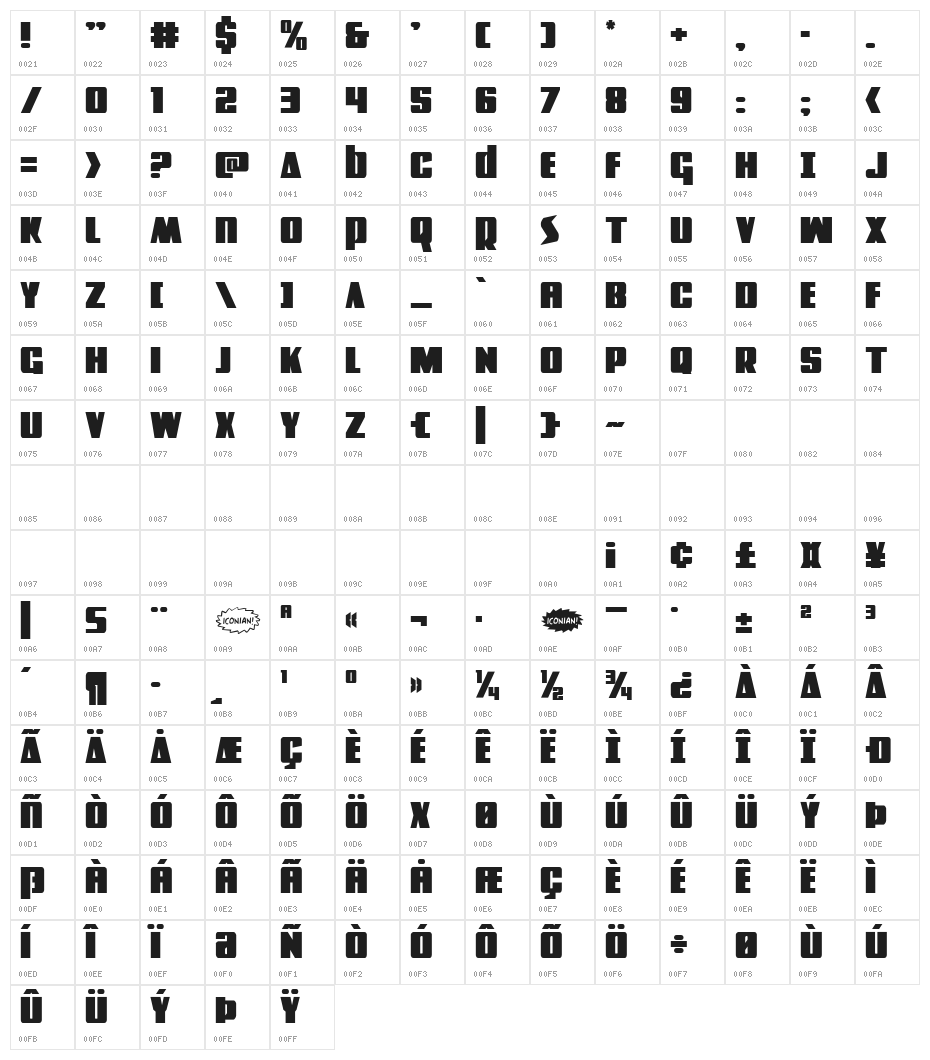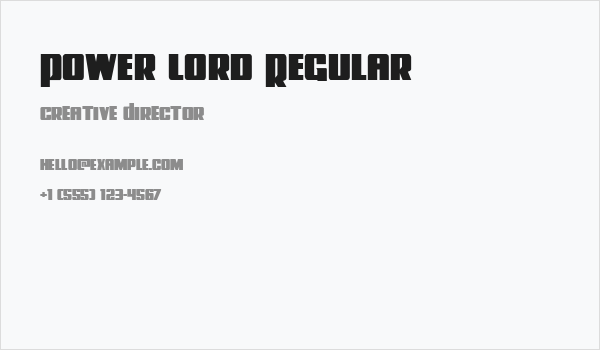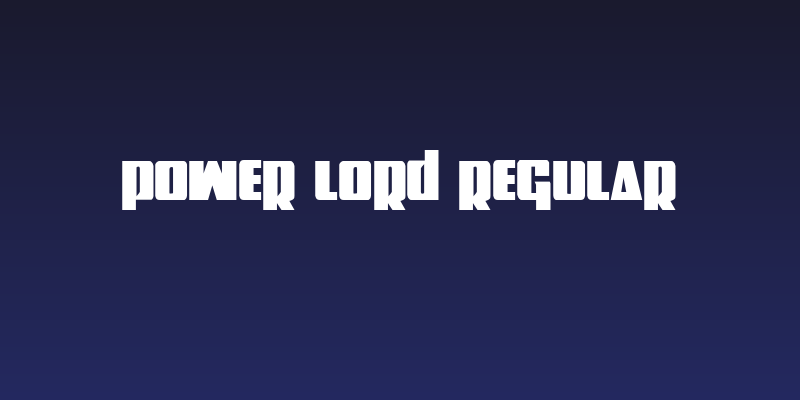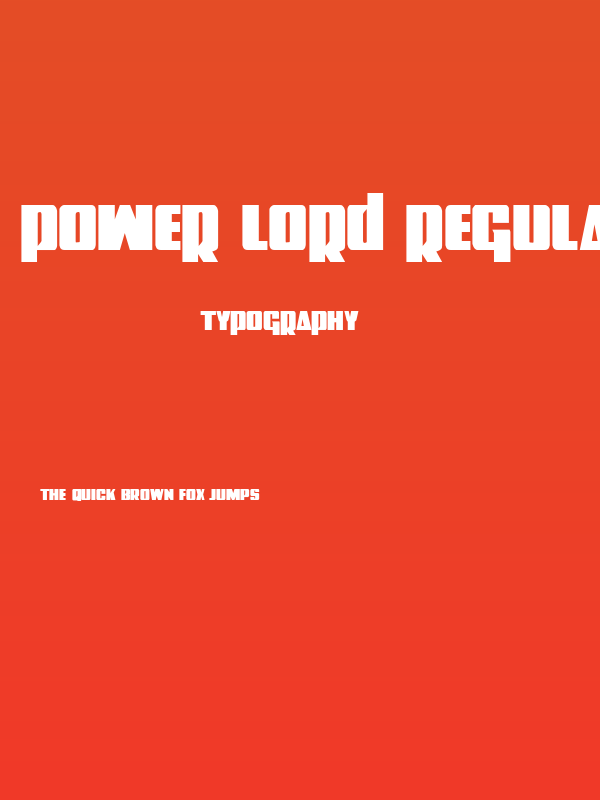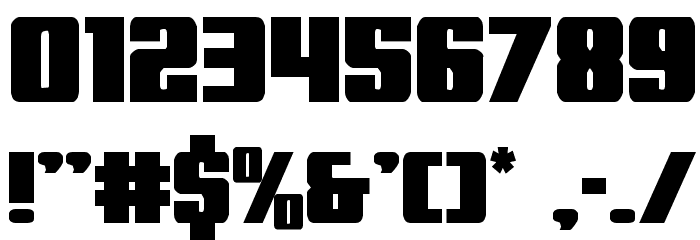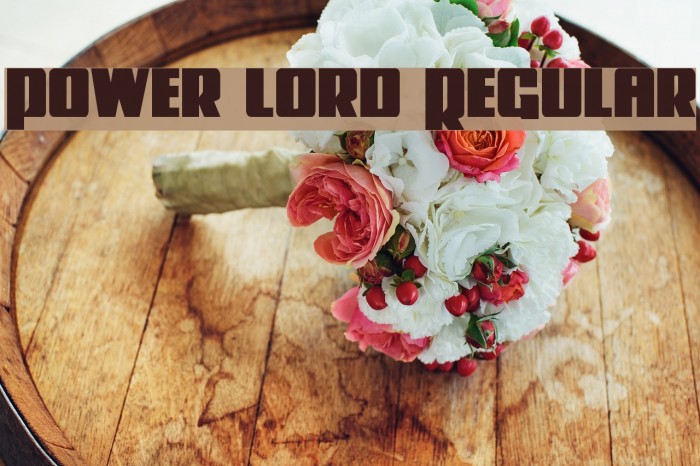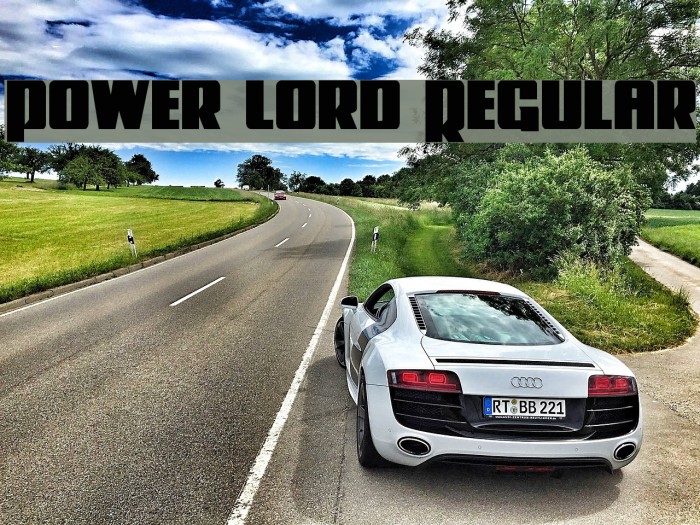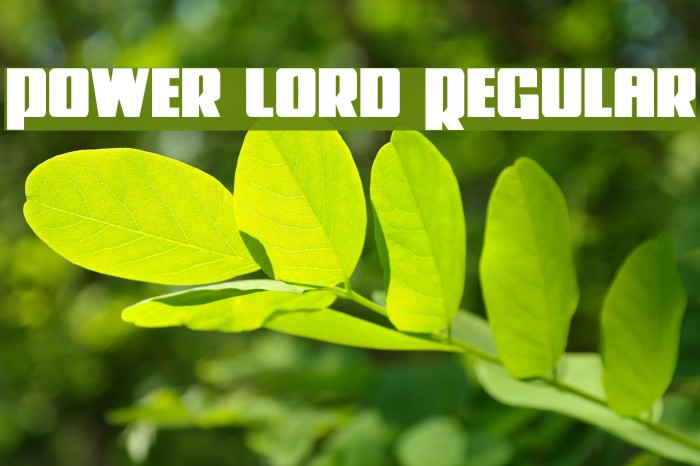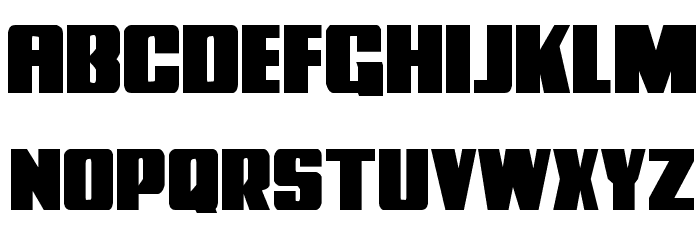
Power Lord Regular Font
Power Lord Regular Description
This font features a bold and powerful design with thick, blocky characters that convey strength and impact. The uppercase and lowercase letters maintain a consistent width, creating a uniform appearance. The sharp angles and straight lines give it a modern and assertive look, making it ideal for attention-grabbing headlines. The numbers and special characters are equally robust, ensuring a cohesive style across all text elements. Its bold presence is perfect for projects that require a strong visual statement.
| Proposed Projects | Ideal for posters, logos, video game titles, and branding materials that require a strong, impactful presence. |